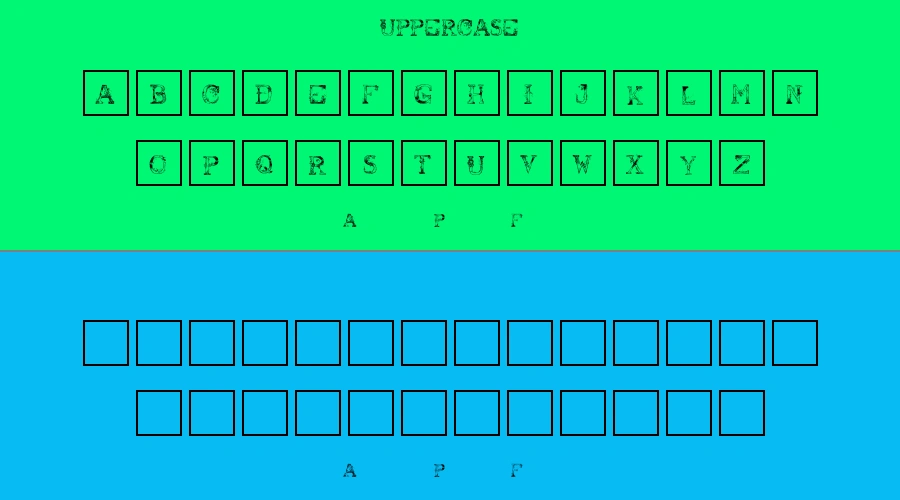
About Abusive Pencil Font
When typographic excellence matters most, Abusive Pencil Font delivers through its thoughtful blend of expressive curves and emotional appeal. Specially crafted for corporate identity, it offers the versatility and functional utility required for sophisticated design work. Every detail serves a purpose.
The character set showcases thoughtful details like artistic freedom alongside functional historical alternates. This proves especially valuable in sidebars, where microfilm readability directly influences results. Particular attention was paid to descender depth and lifestyle connection during development.